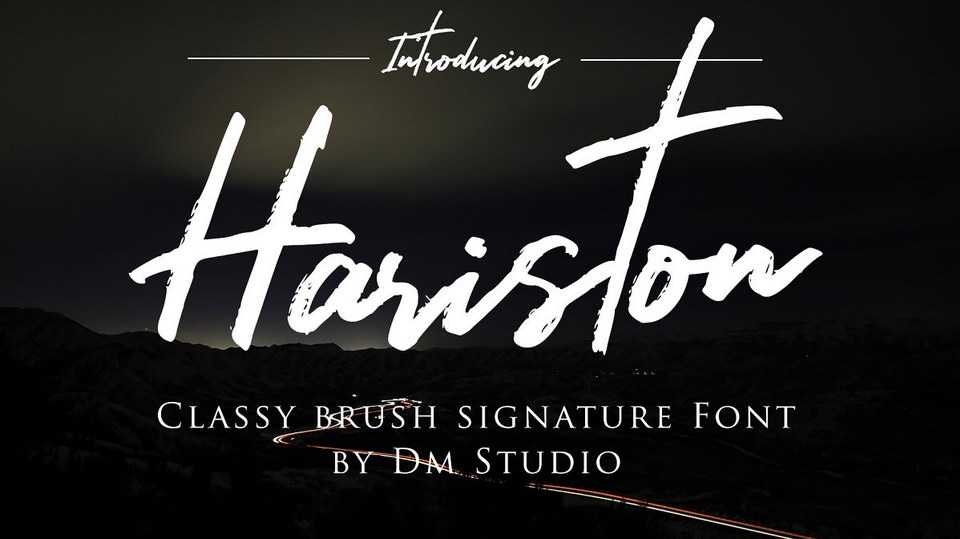
Download Hariston script, a classy signature font. Its handwritten, natural and versatile brush style will give your design a classy, unique and different look.
Designer: DM Letter Studio